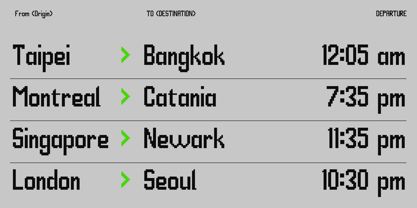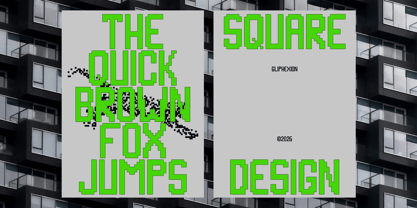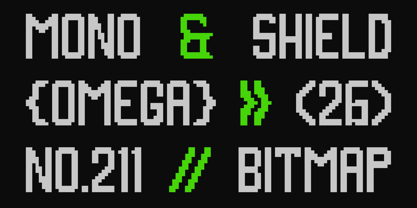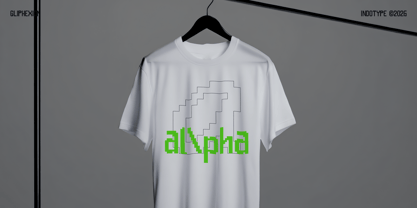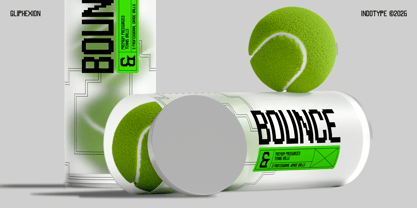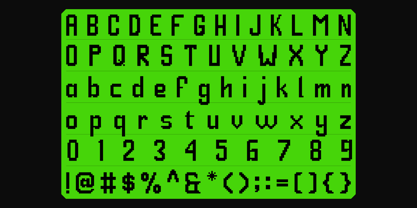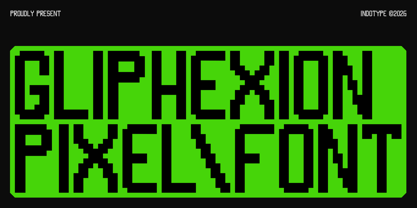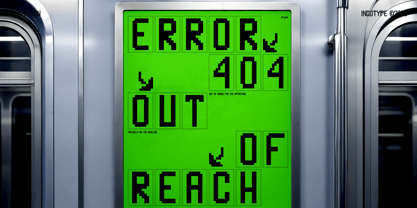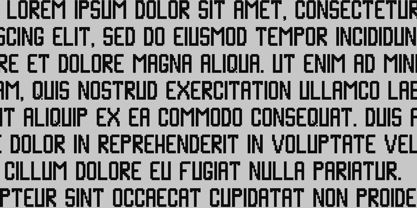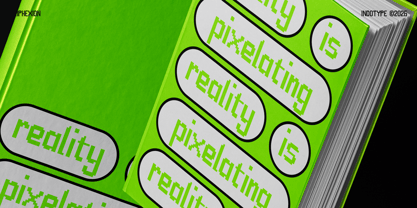
IT Gliphexion
par Indotype
La famille de polices IT Gliphexion a été conçue par Frederik Aristaputra et publiée par Indotype. IT Gliphexion contient 2 styles et options de package familial. En savoir plus sur cette famille
Gliphexion is a meticulously crafted bitmap pixel font that captures the raw, nostalgic charm of early digital and gaming interfaces while injecting a dose of retro-futuristic style. Each character is built from a grid of crisp, intentional pixels, celebrating the aesthetic limitations of low-resolution displays as a deliberate design choice. This results in a typeface that is both authentically vintage and strikingly modern. Perfect for projects that thrive on digital nostalgia, cyberpunk aesthetics, or a crafted DIY feel, Gliphexion excels in game UI design, tech-themed branding, crypto/Web3 graphics, and any editorial or artistic work aiming for an 8-bit soul with contemporary execution. It’s a direct connection to the foundational language of screens, rendered with precision. • Ideal for: Video Game UI & HUDs, Cyberpunk & Retro-Futuristic Design, Crypto/Web3 Branding, Tech & Coding Themes, Digital Art, Nostalgic Packaging. • Classification: Pixel, Bitmap, Display, Monospaced, Retro. • Attributes: Digital, Nostalgic, Crisp, Geometric, Retro-futuristic, Authentic, Modular.
Concepteurs: Frederik Aristaputra
Fonderie: Indotype